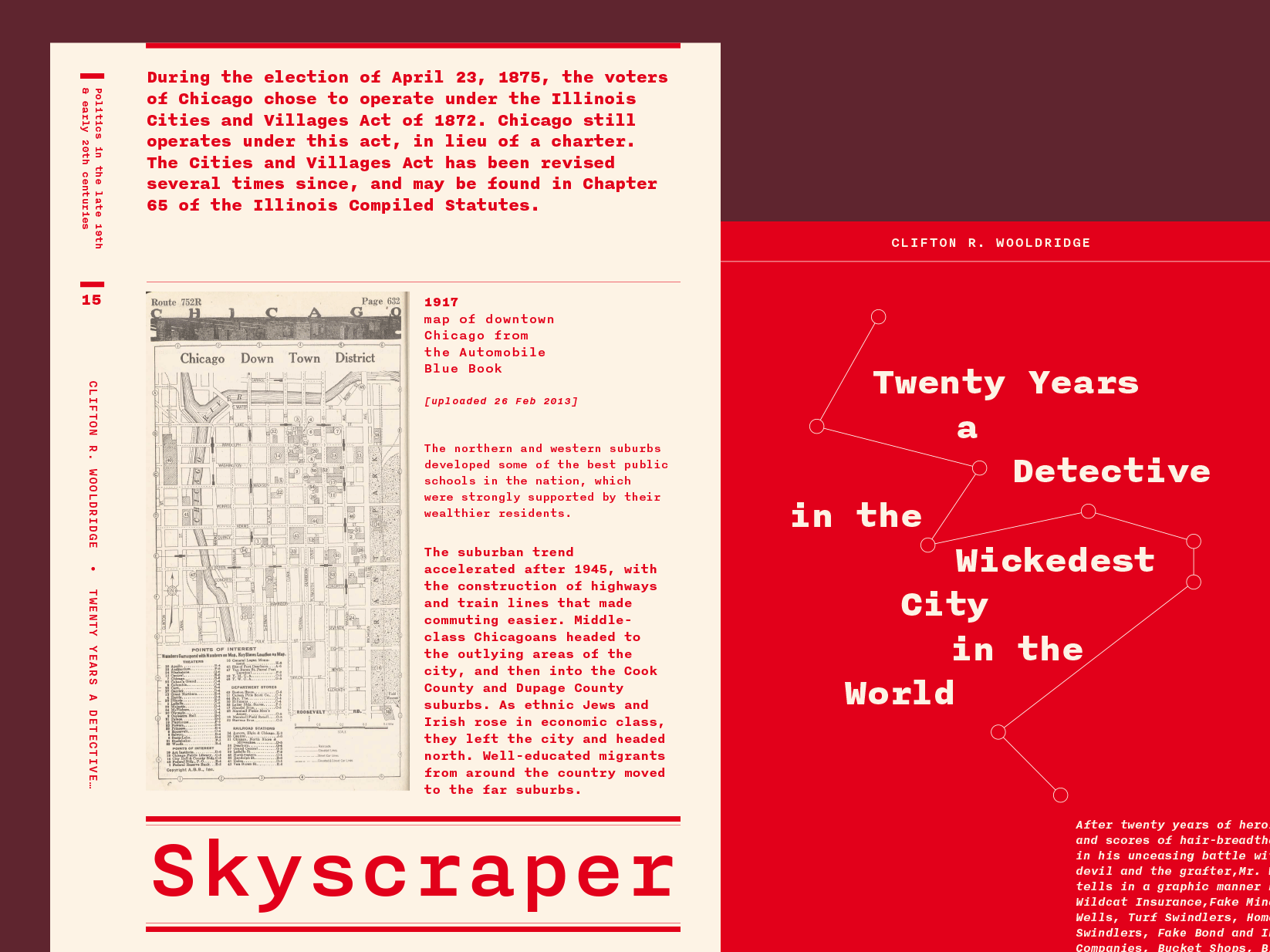
Nitti is a monospaced typeface family with roots in the early 19th century Grotesques, known for its quirky and idiosyncratic shapes that provide a sense of humanity and warmth. It is named after Frank 'The Enforcer' Nitti, a henchman of Al Capone, and is part of a larger collection of Grotesque-inspired typefaces. Nitti features an extensive character set that supports multiple languages, including Latin, Greek, and Cyrillic scripts.